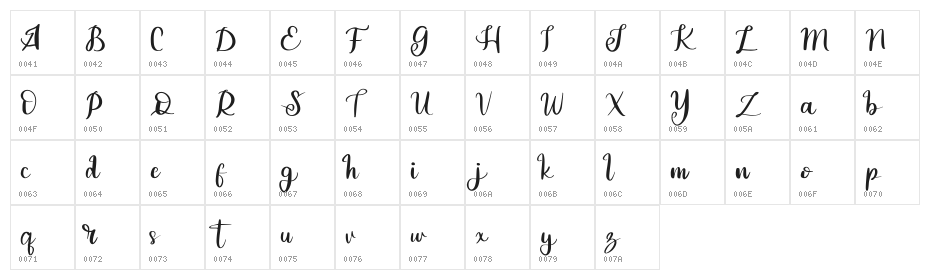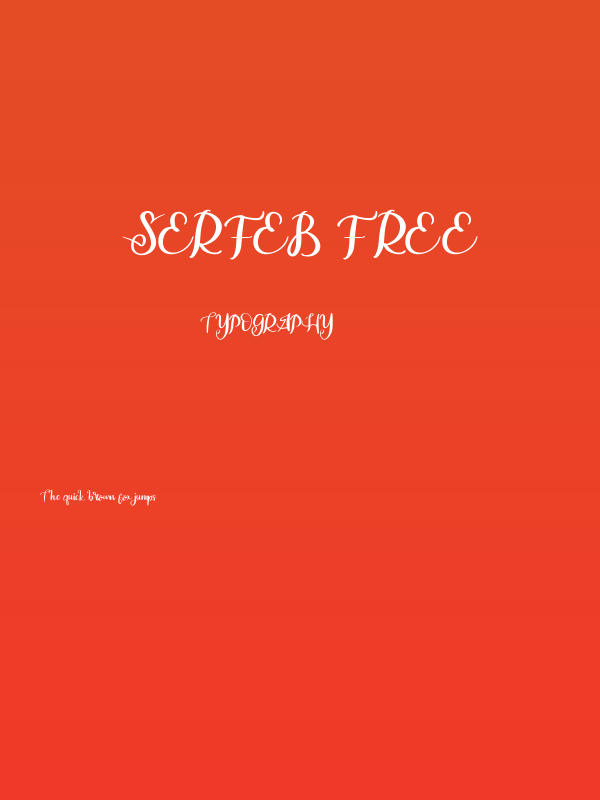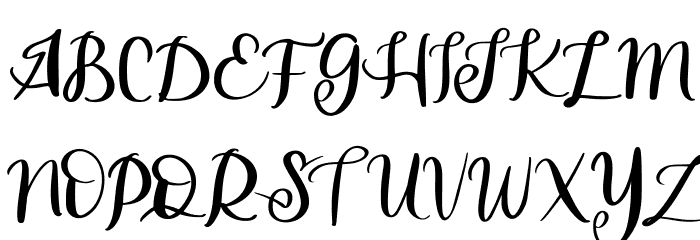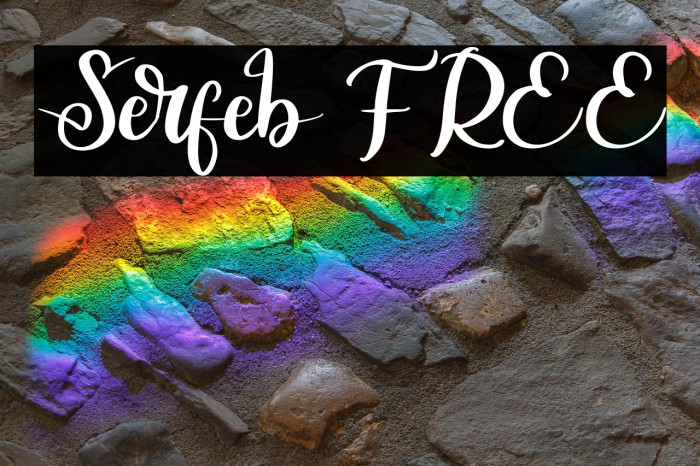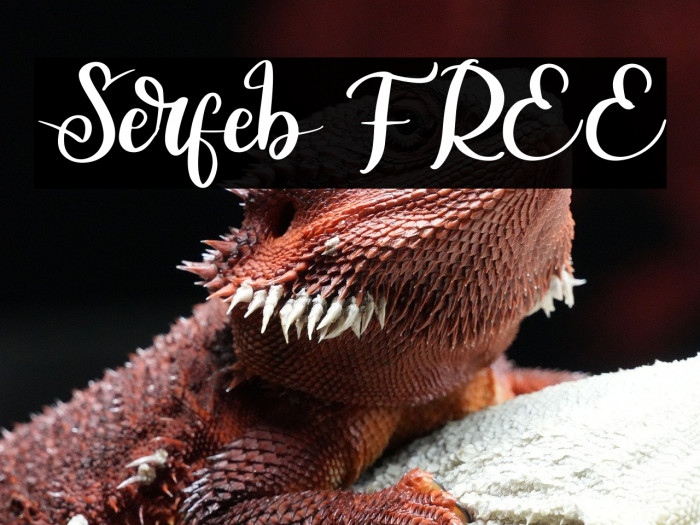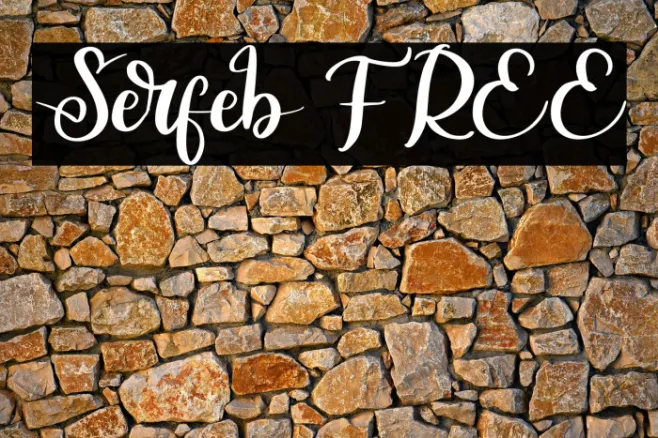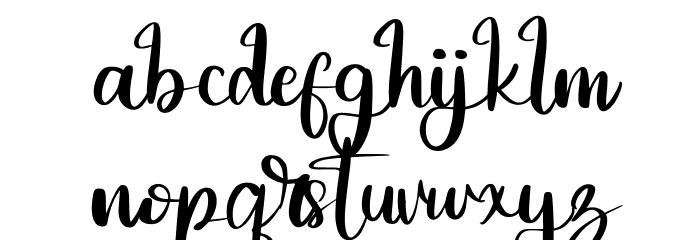
Serfeb FREE Font
Serfeb FREE Description
This font features an elegant and flowing script style, characterized by its smooth, cursive strokes and decorative flourishes. The uppercase letters exhibit a graceful, looping design, while the lowercase letters maintain a consistent, fluid motion. The font's overall appearance is both sophisticated and playful, making it suitable for a variety of creative applications. The characters are well-balanced, with a harmonious blend of thick and thin lines that add a touch of refinement. This font is ideal for projects that require a touch of elegance and charm.